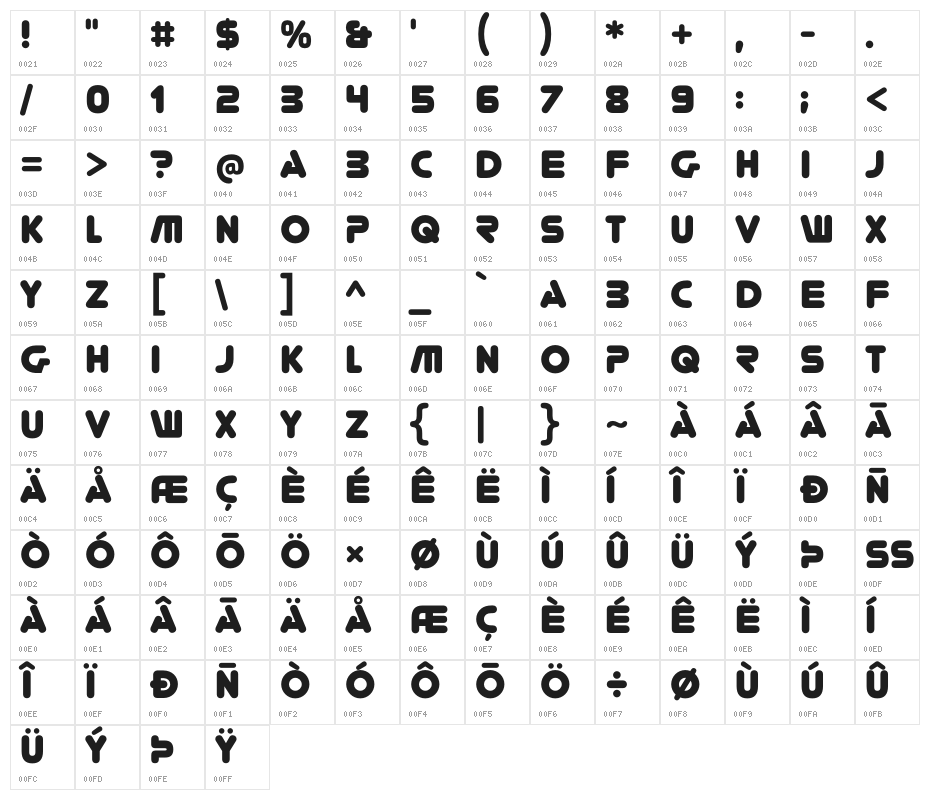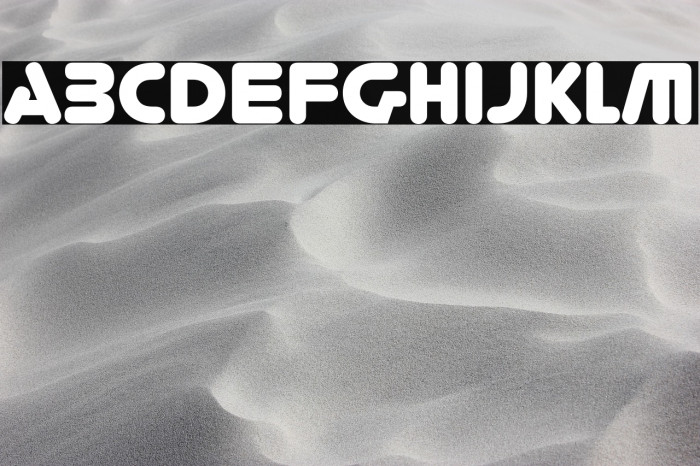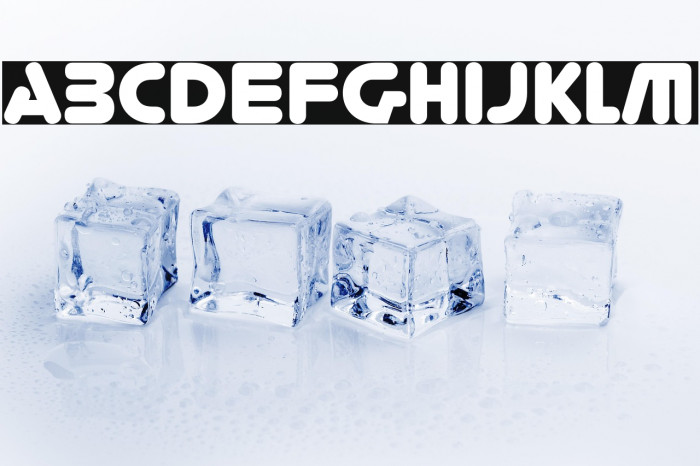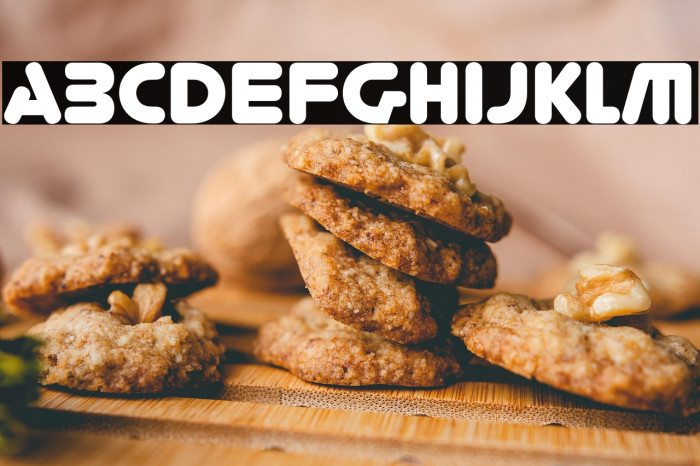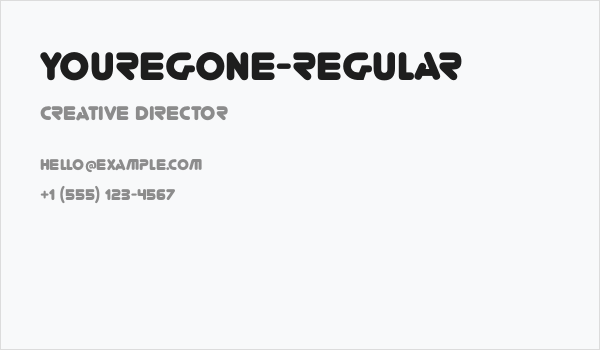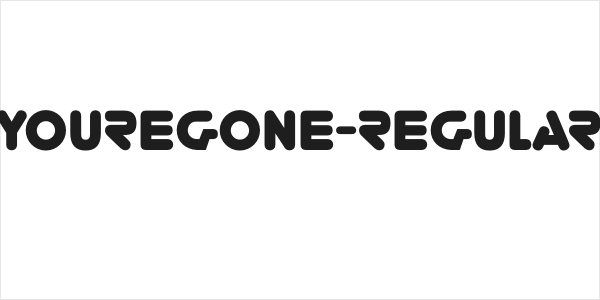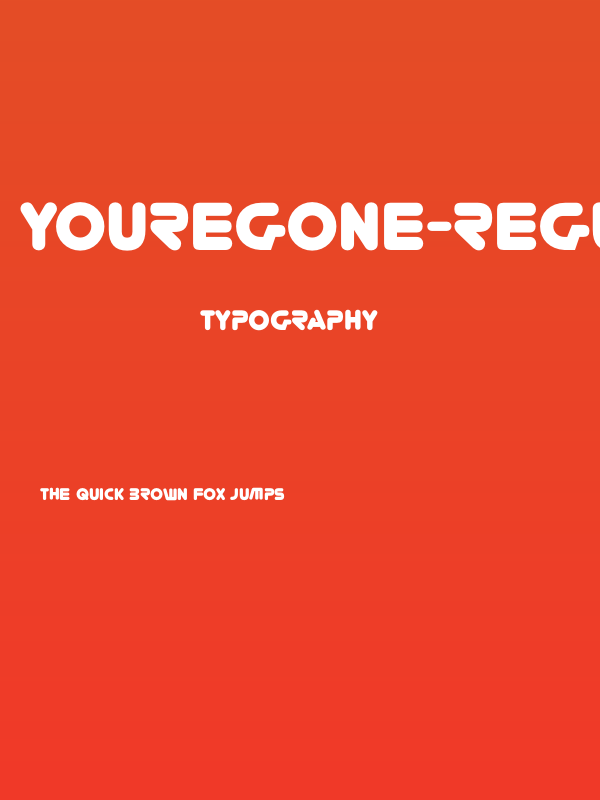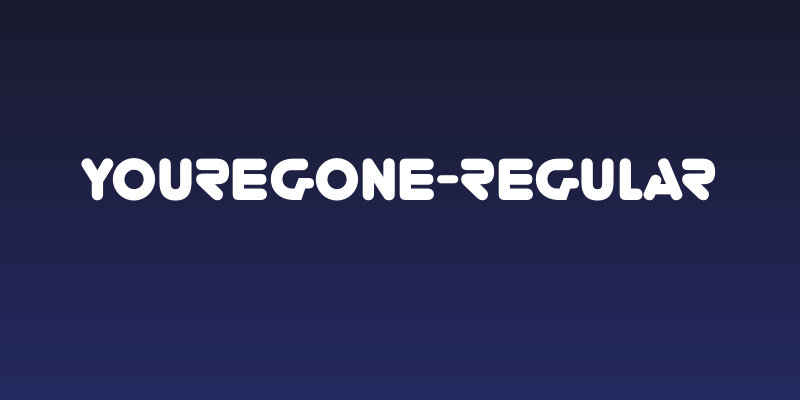
YoureGone-Regular Font
YoureGone-Regular Description
This font features a bold, rounded style with a modern and futuristic appearance. The characters are uniformly thick, giving a strong and impactful look. The rounded edges soften the overall feel, making it approachable yet assertive. The uppercase and lowercase letters maintain a consistent style, with the numbers and special characters following suit. This font is highly legible and stands out due to its unique design, making it suitable for various creative applications.